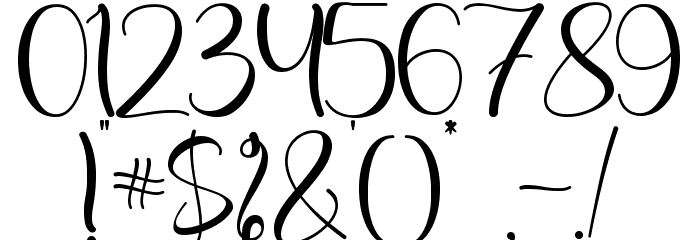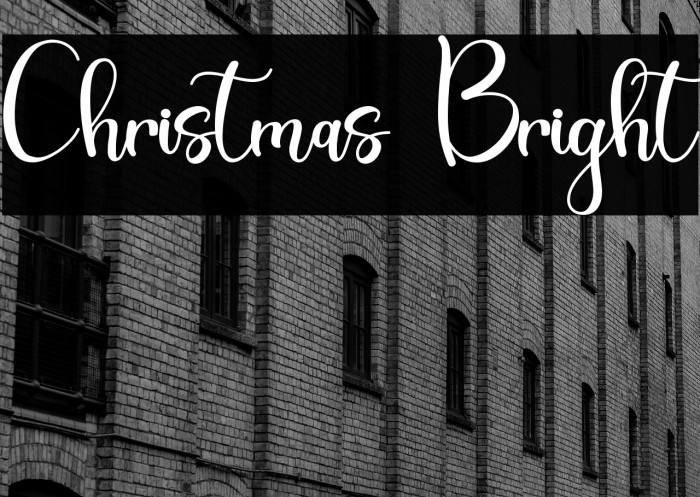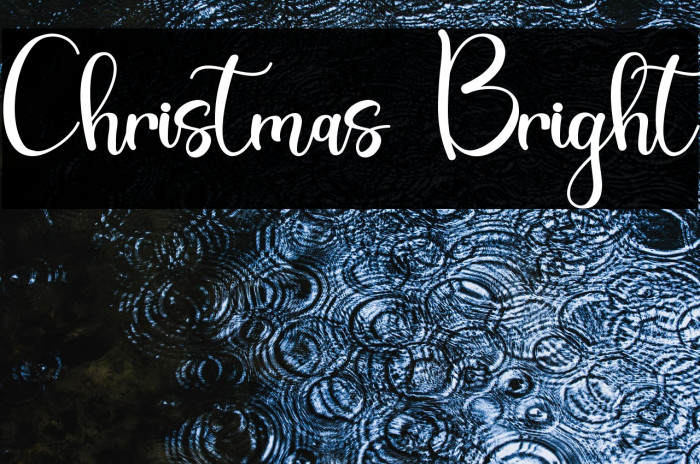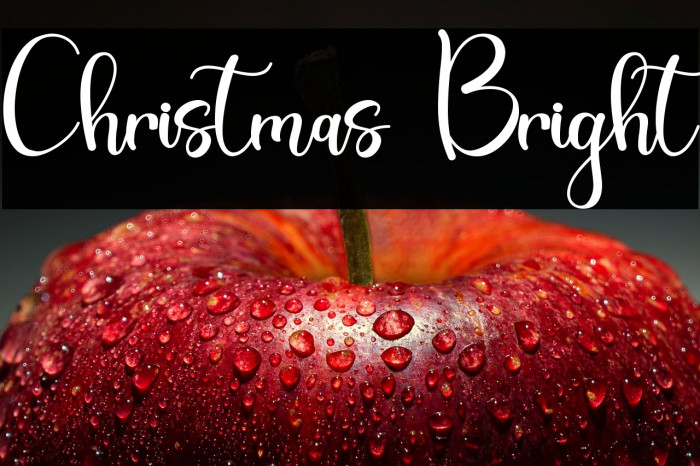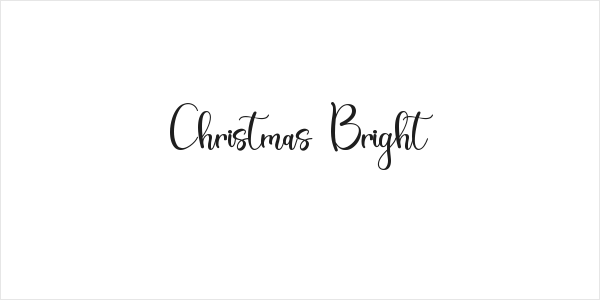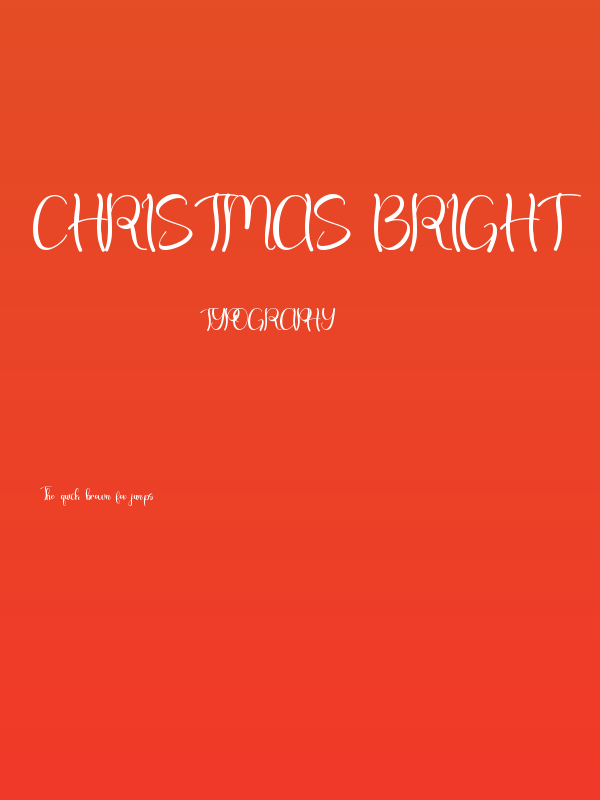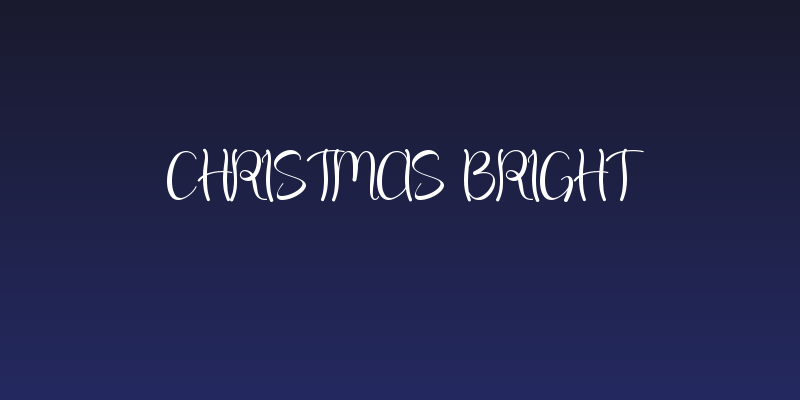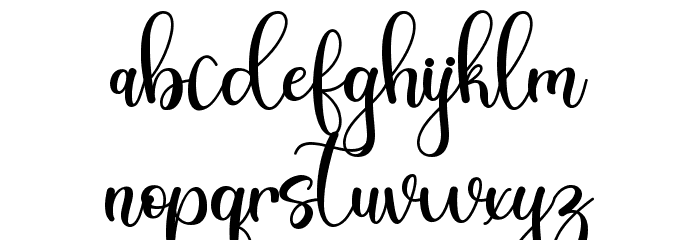
Christmas Bright Font
Christmas Bright Description
This font exudes a festive and whimsical charm, characterized by its flowing, cursive style that mimics elegant handwriting. The uppercase letters are tall and slender, with playful loops and swirls that add a touch of sophistication. The lowercase letters maintain a consistent flow, enhancing readability while retaining the decorative flair. Numbers and special characters are designed to complement the overall aesthetic, ensuring a cohesive look across all text. The font's unique style makes it perfect for holiday-themed projects, invitations, and greeting cards, where a touch of elegance and festivity is desired.
| Use Case | Headlines, Invitations, Greeting Cards |
| Proposed Projects | Ideal for Christmas cards, festive invitations, holiday decorations, and seasonal branding. |